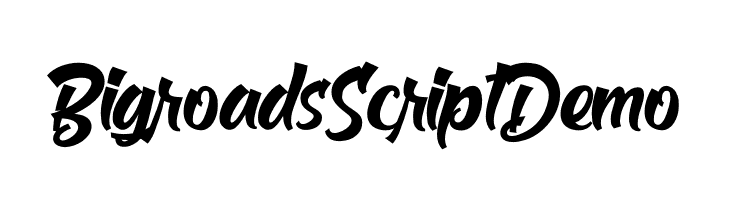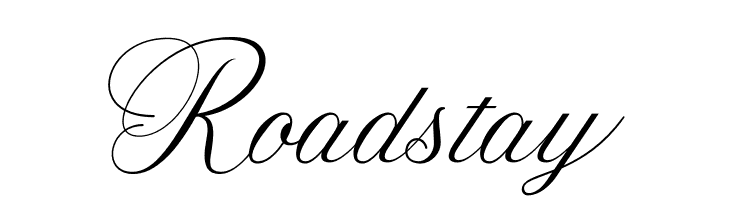
A bold, distressed font with a grunge aesthetic and condensed letterforms.
A bold, expressive script font with flowing, cursive letterforms.
A bold, vintage-inspired font with sharp, angular edges.
A bold, energetic script font with a modern, handwritten style.
A dynamic and elegant script font with flowing, cursive letterforms.
An elegant script font with flowing cursive style and intricate swashes.
A bold, dynamic script font with sweeping curves and fluid strokes.
A bold, dynamic script font with a 3D extruded effect, perfect for impactful designs.
A bold, angular serif font with a modern yet vintage appeal.
A bold, dynamic script font with fluid, sweeping strokes and modern flair.